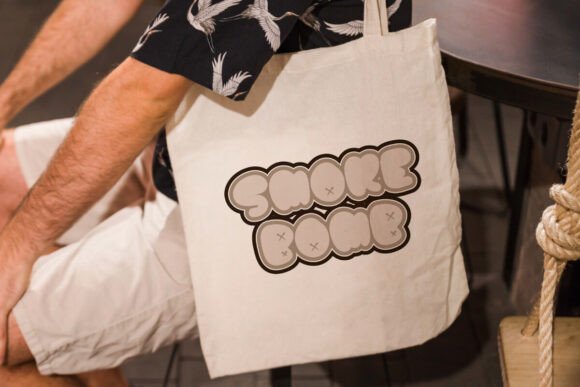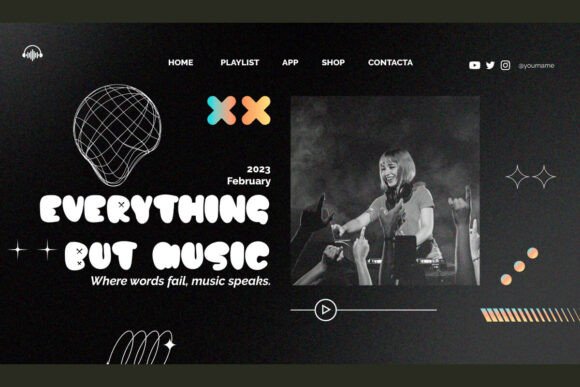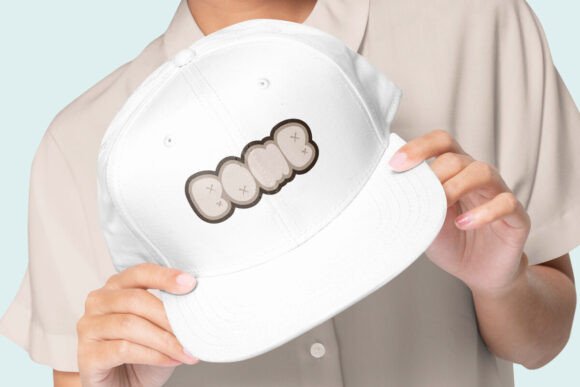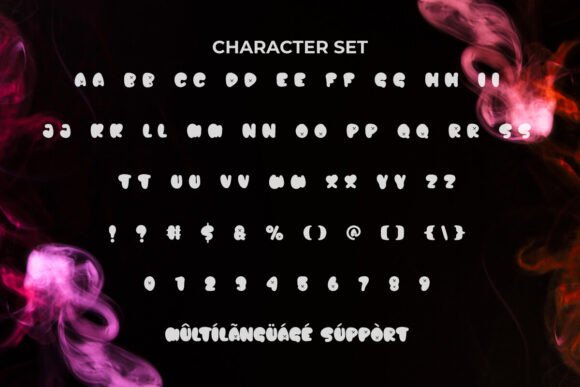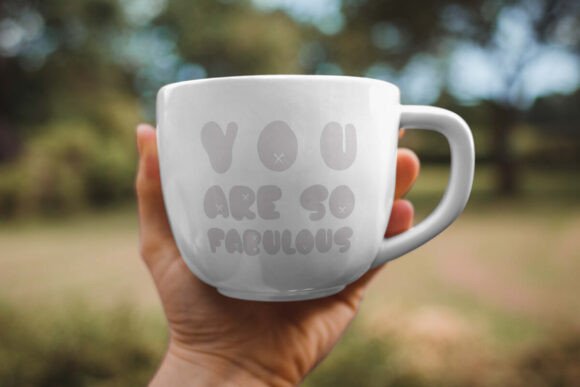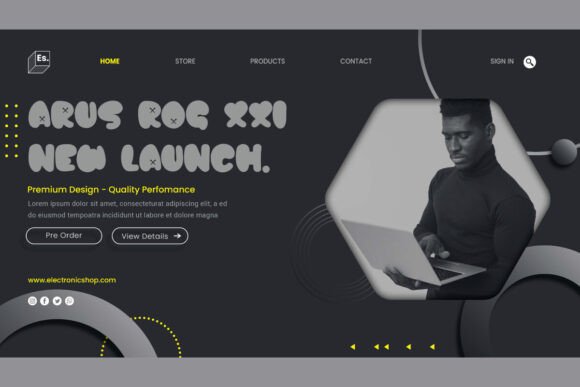
Introduction to Smoke Bomb Font
Have you ever been brainstorming a creative project, pouring over design concepts, and then suddenly – the perfect idea strikes? The thrill of a great idea can be exhilarating, and the right design resource can take it to the next level. For designers looking to add a touch of whimsy to their work, the Smoke Bomb Font is a game-changer. This trendy, cute yet scary bubble display font combines the classic with the modern, creating a unique visual experience that’s sure to capture attention.
Whether you’re working on a billboard, blog, or brand logo, the Smoke Bomb Font is a versatile design element that can elevate your creative project. With its combination of bubble dynamics and a funky style, it’s no wonder this font has become a popular choice among designers. And the best part? It’s available for free download, complete with a transparent background for seamless integration into your design.
Key Features of Smoke Bomb Font
- High-quality design resource ideal for creative projects, offering a unique and eye-catching style.
- Transparent background allows for seamless integration into various design elements and compositions.
- Unique characteristics, such as bold lines and vibrant colors, make it perfect for adding a touch of drama and flair to any design project.
- Designed to be highly legible, even at small sizes, making it suitable for a wide range of design applications, from signage to digital displays.
Honest Review: Smoke Bomb Font
As a designer, I’m always on the lookout for unique and high-quality design resources to enhance my creative projects. The Smoke Bomb Font is one such resource that caught my attention, and I’m excited to share my honest review with you.
What works well: ✨ The font is highly customizable, making it perfect for various design applications. I particularly appreciate the transparent background option, which allows me to easily layer the font over any image or design element. The high quality of the font is evident in its crisp, clean lines and vibrant colors.
What’s not so great: ⚠️ The font is only available in a limited number of styles, which might be a drawback for designers who prefer a more extensive font library. Additionally, some users may find the font’s abstract design style challenging to work with.
Overall impression: I’m impressed with the Smoke Bomb Font’s unique design and versatility. While it may not be perfect, it’s a valuable addition to any designer’s toolkit, especially for those working on creative projects that require a bold, eye-catching font.
Smoke Bomb Font: A Creative Design Resource
The Smoke Bomb Font is a high-quality design resource that can elevate your creative project with its unique and eye-catching style. This free download is perfect for designers looking to add a touch of sophistication to their work.
Tips for Getting the Most Out of Smoke Bomb Font
Use the Smoke Bomb Font with a transparent background to create a sense of depth and dimension in your design. Experiment with different font sizes and colors to create a unique and eye-catching look.
The Smoke Bomb Font is perfect for creative projects such as social media graphics, business cards, and posters. Its unique style and high-quality design make it an ideal choice for designers looking to add a touch of sophistication to their work.